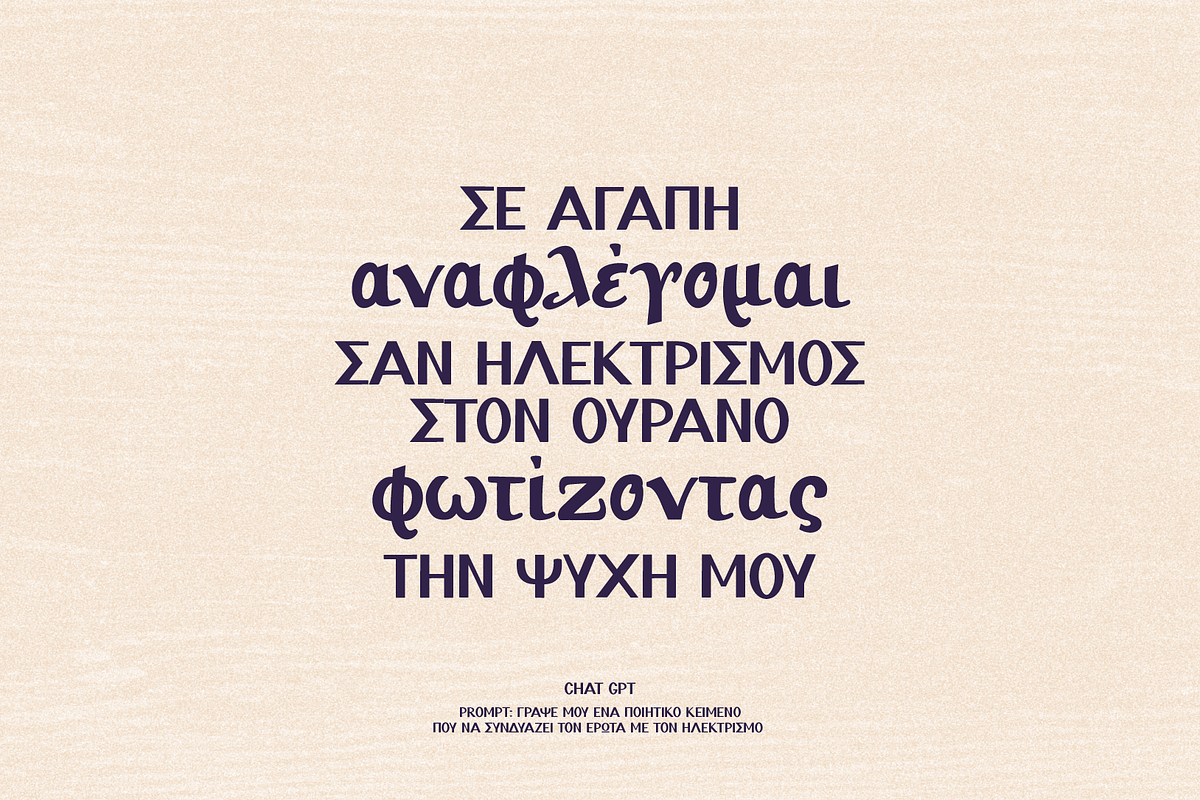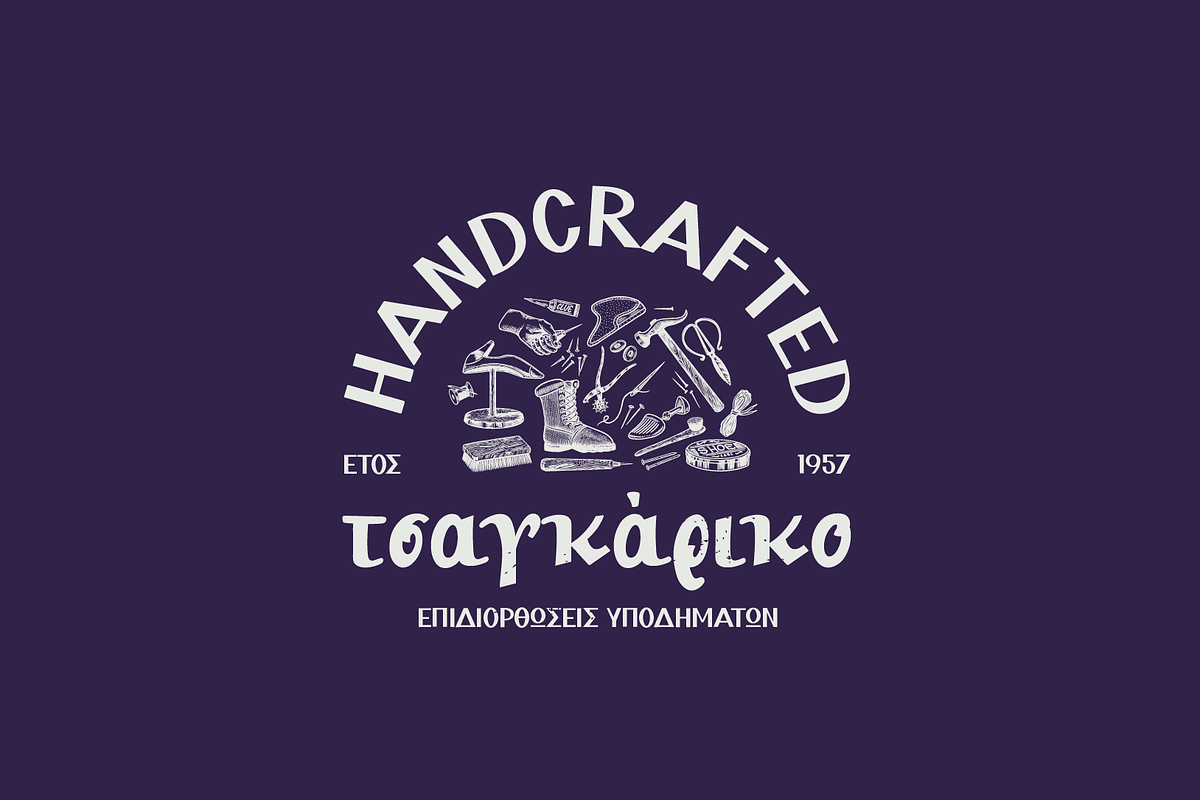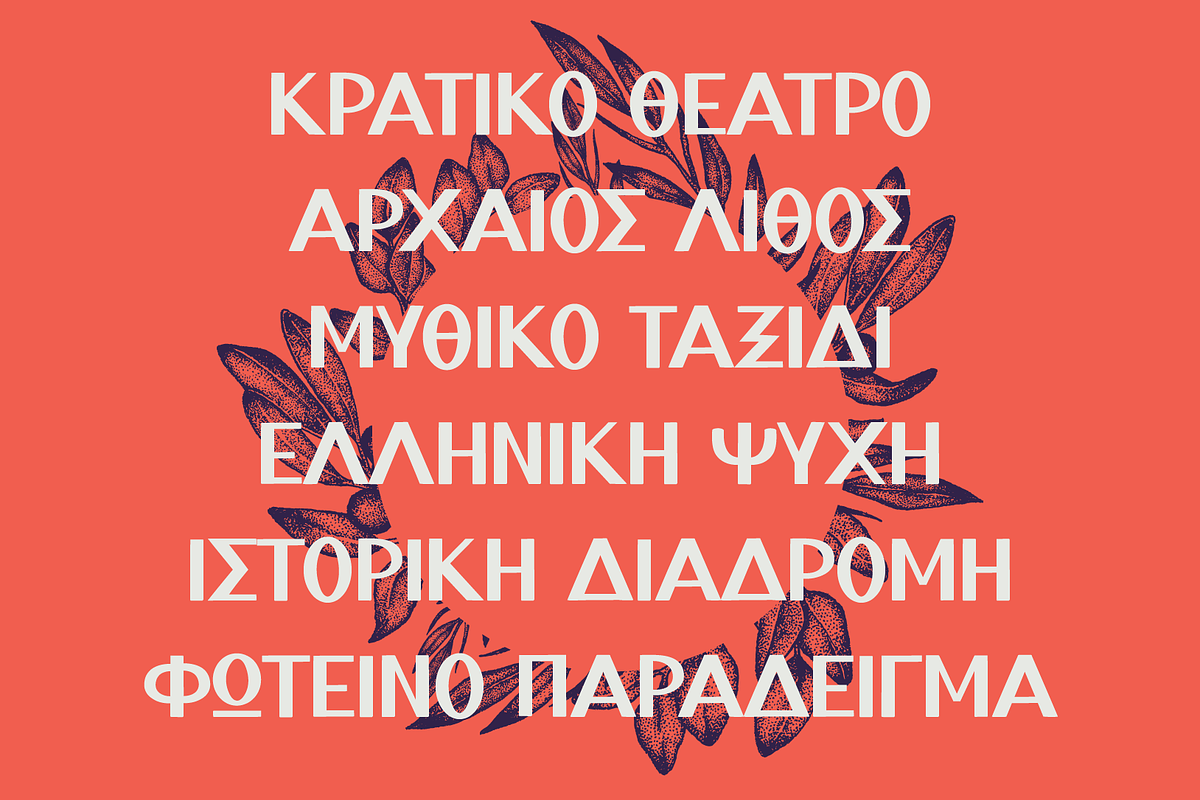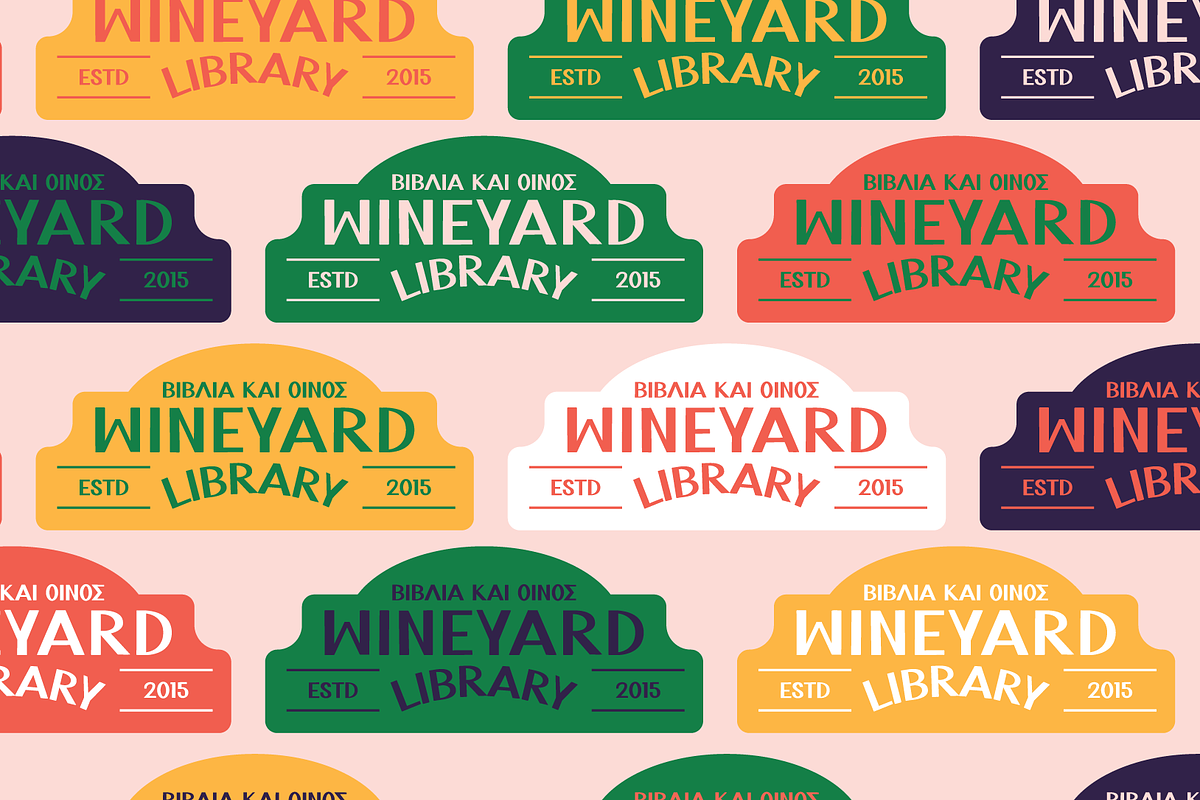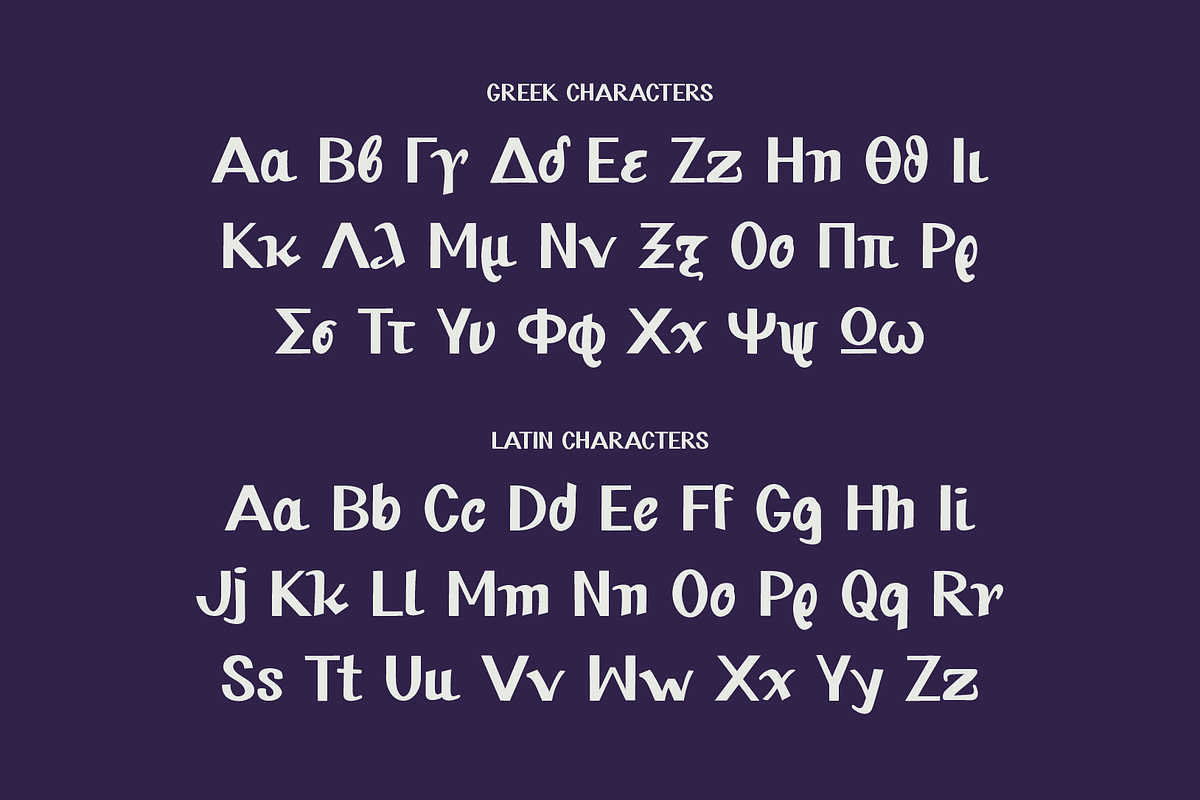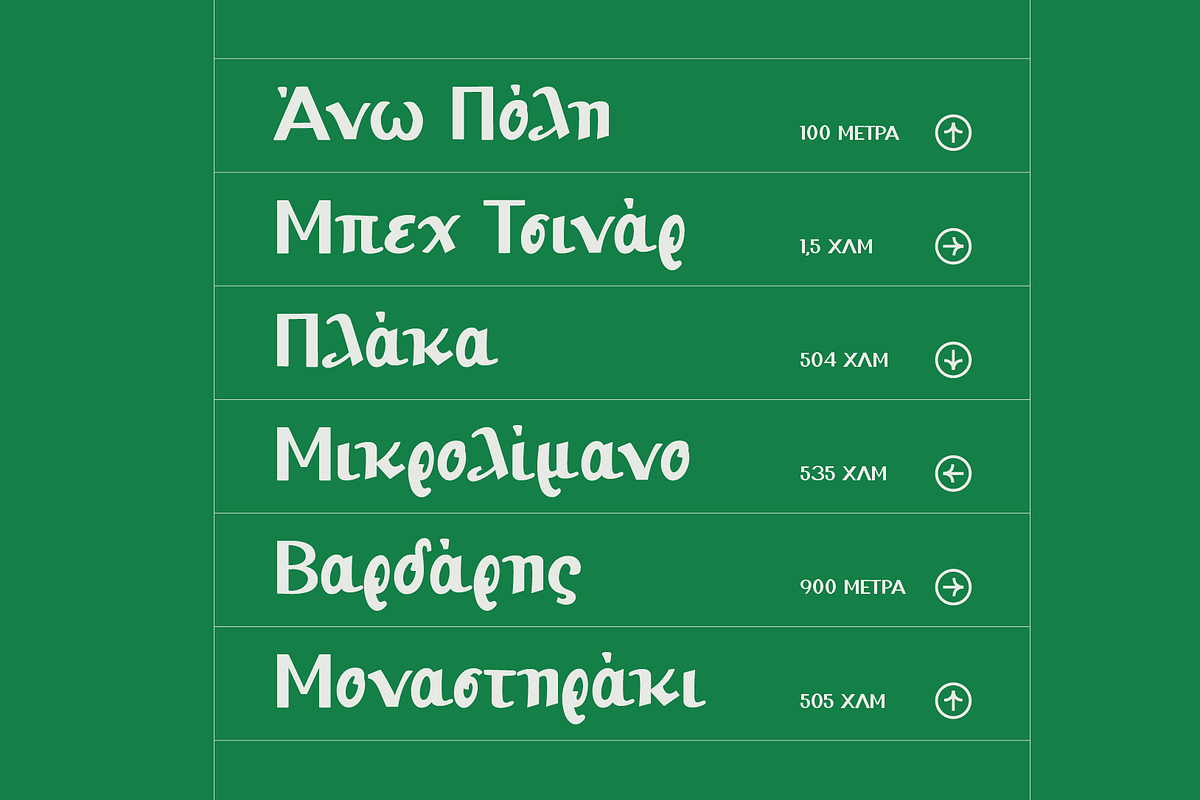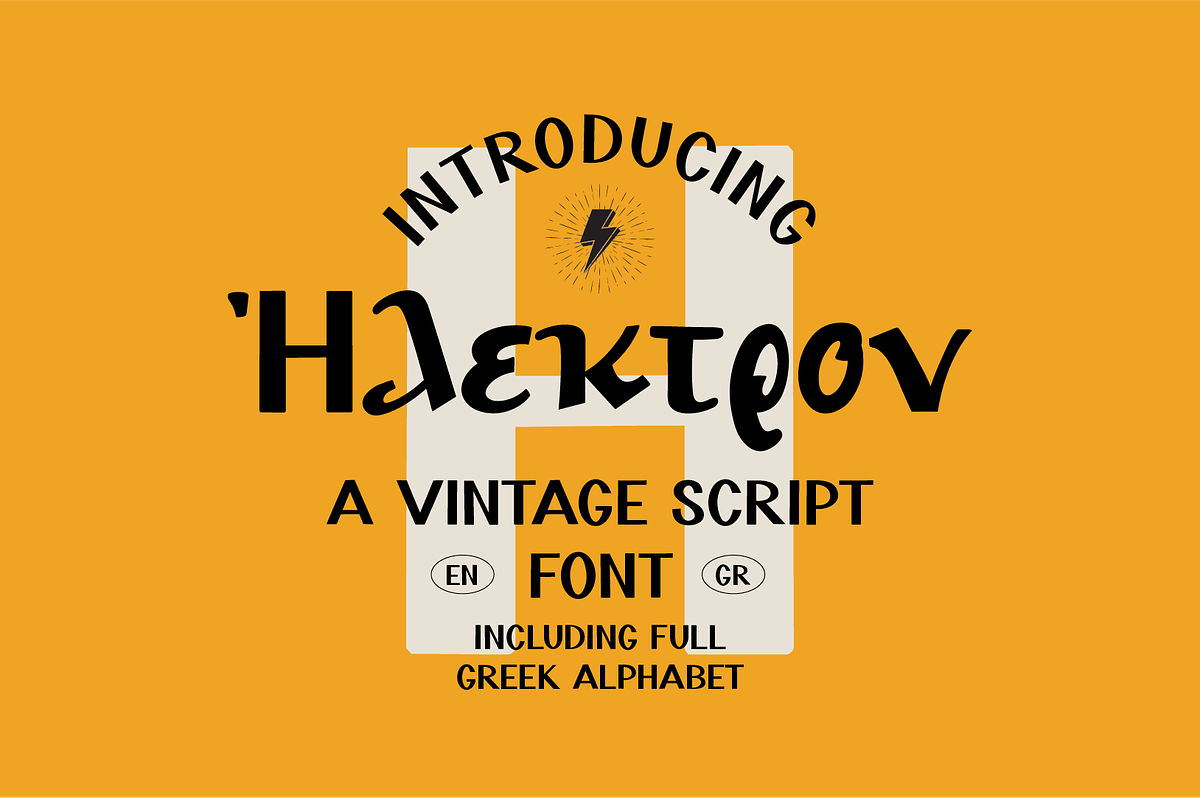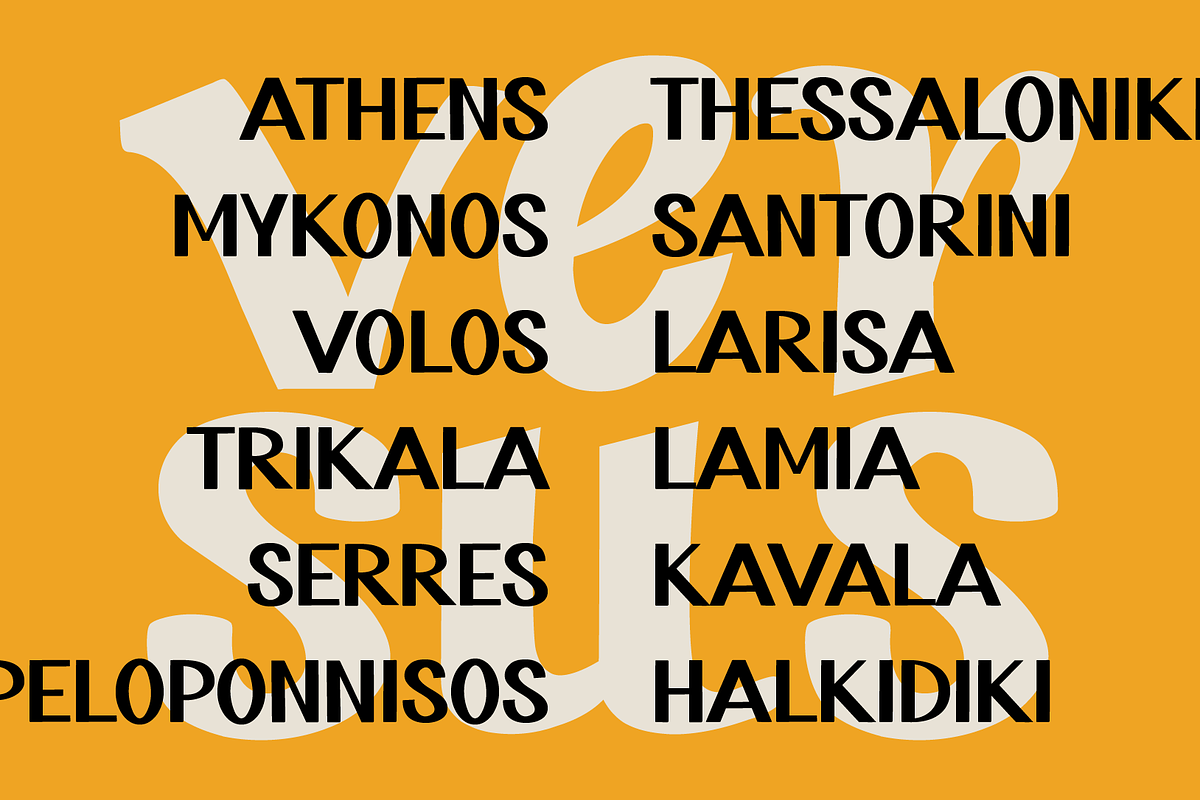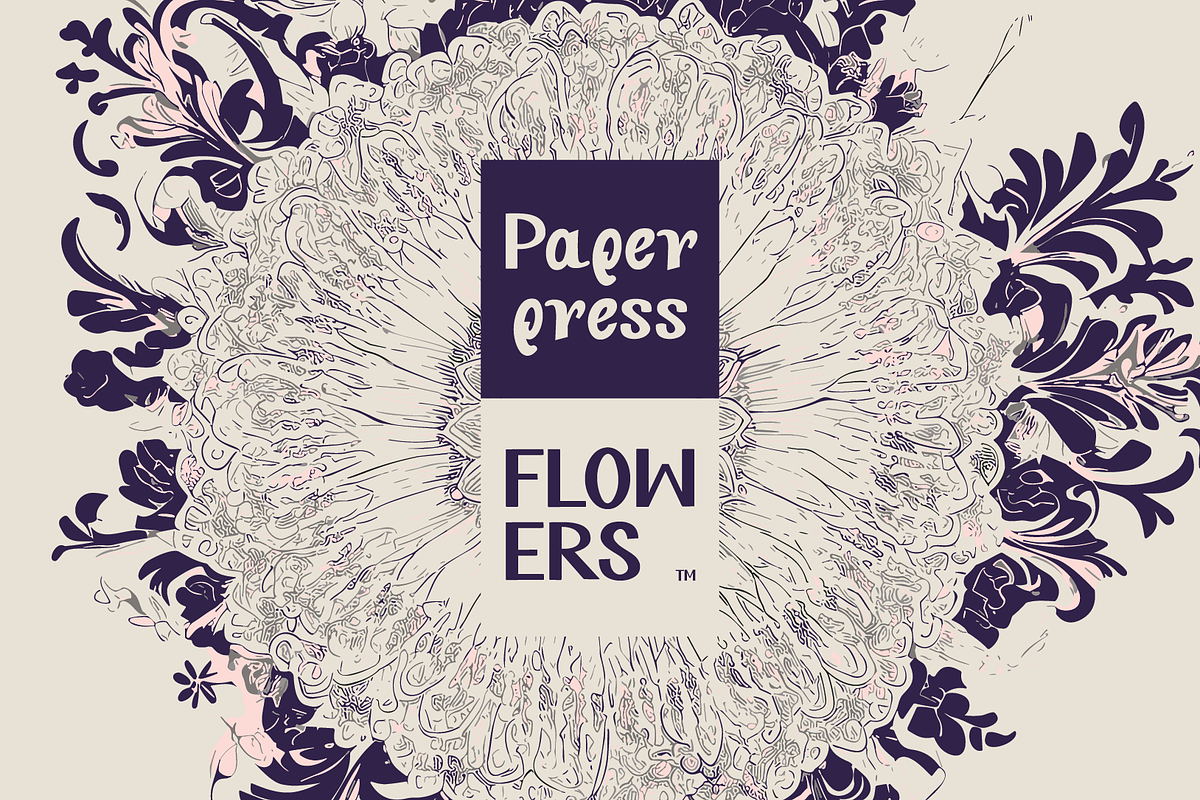
Ilektron font
Unveiling “Ilectron”, a font inspired by the grace of hand calligraphy signs. Elevate your designs with the timeless charm of this meticulously crafted font. Whether you’re crafting invitations, branding, or digital creations, Ilectron font adds a touch of sophistication and authenticity.
Dive into the rich world of Ilectron, where each curve tells a story of craftsmanship.
With a focus on detail, Ilectron doesn’t just offer a stunning array of Latin characters but also embraces the beauty of Greek characters, ensuring versatility and cultural richness.
Experience the magic of Ilectron. Immerse yourself in the artistry, and let your designs speak the language of timeless beauty.